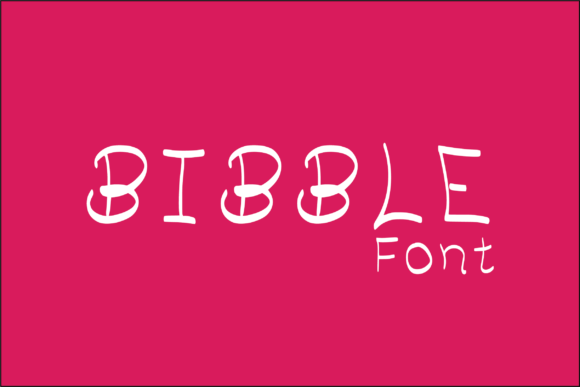
The Joy of Bibble Font: Adding a Dash of Whimsy to Your Designs
I’ll never forget the time I was working on a craft project for a client’s birthday party invitation. I had the perfect design concept, but I just couldn’t find the right font to bring it all together. That’s when I stumbled upon Bibble Font, and it was love at first sight! 💕
Bibble is a fun and quirky handwritten font that’s perfect for adding a touch of personality to your designs. In this article, I’ll share my honest review of Bibble Font, provide a step-by-step guide on how to use it on various platforms, and explore similar fonts you might enjoy.
My Honest Review of Bibble Font
• Unique and playful character set that’s perfect for crafty projects 🎨
• Easy to read, even at smaller font sizes 📚
• Supports OpenType features, glyphs, and stylistic alternates for added versatility 🤩
• Works beautifully for titles, headings, and short paragraphs 📝
While Bibble Font is an amazing addition to any design project, there are a few things to keep in mind:
• Some characters may not work well in all contexts, so be sure to test and adjust as needed 🤔
• Limited language support, so double-check the character set before using it for multilingual projects 🌎
The Story Behind Bibble Font
Bibble Font was created with the intention of bringing a smile to designers’ faces. Its creator, a freelance designer, was inspired by the quirky and playful world of hand-drawn typography. With Bibble Font, they aimed to craft a unique and versatile font that would add a dash of personality to any design project.
Q: What type of projects is Bibble Font best suited for?
A: Bibble Font is perfect for crafty projects, party invitations, social media graphics, and any design that requires a playful touch.
Q: Is Bibble Font available in multiple languages?
A: Bibble Font has limited language support. If you need to create multilingual content, double-check the character set before using the font.
Q: Can I use Bibble Font in combination with other fonts?
A: Absolutely! Bibble Font pairs well with a variety of fonts. Experiment with different combinations to find the perfect match for your design.